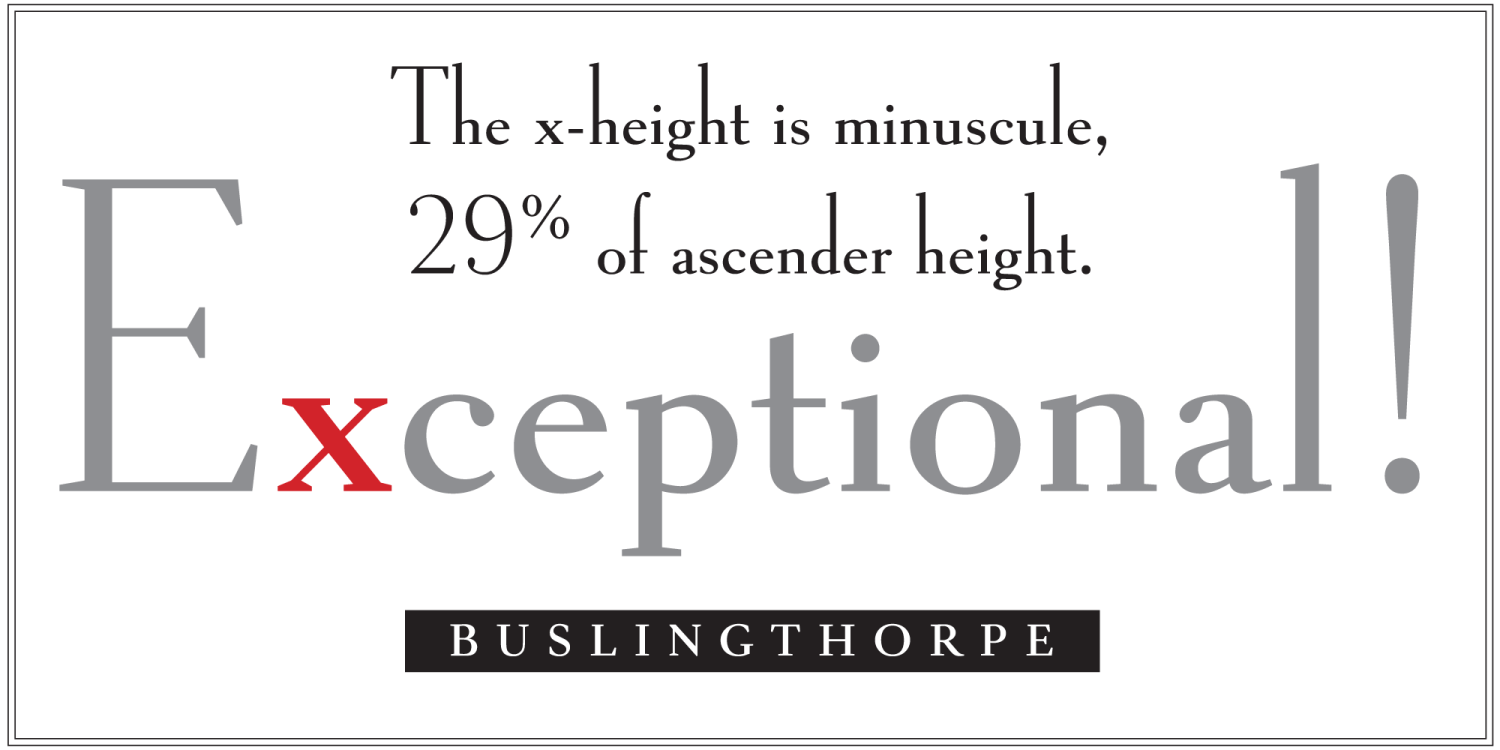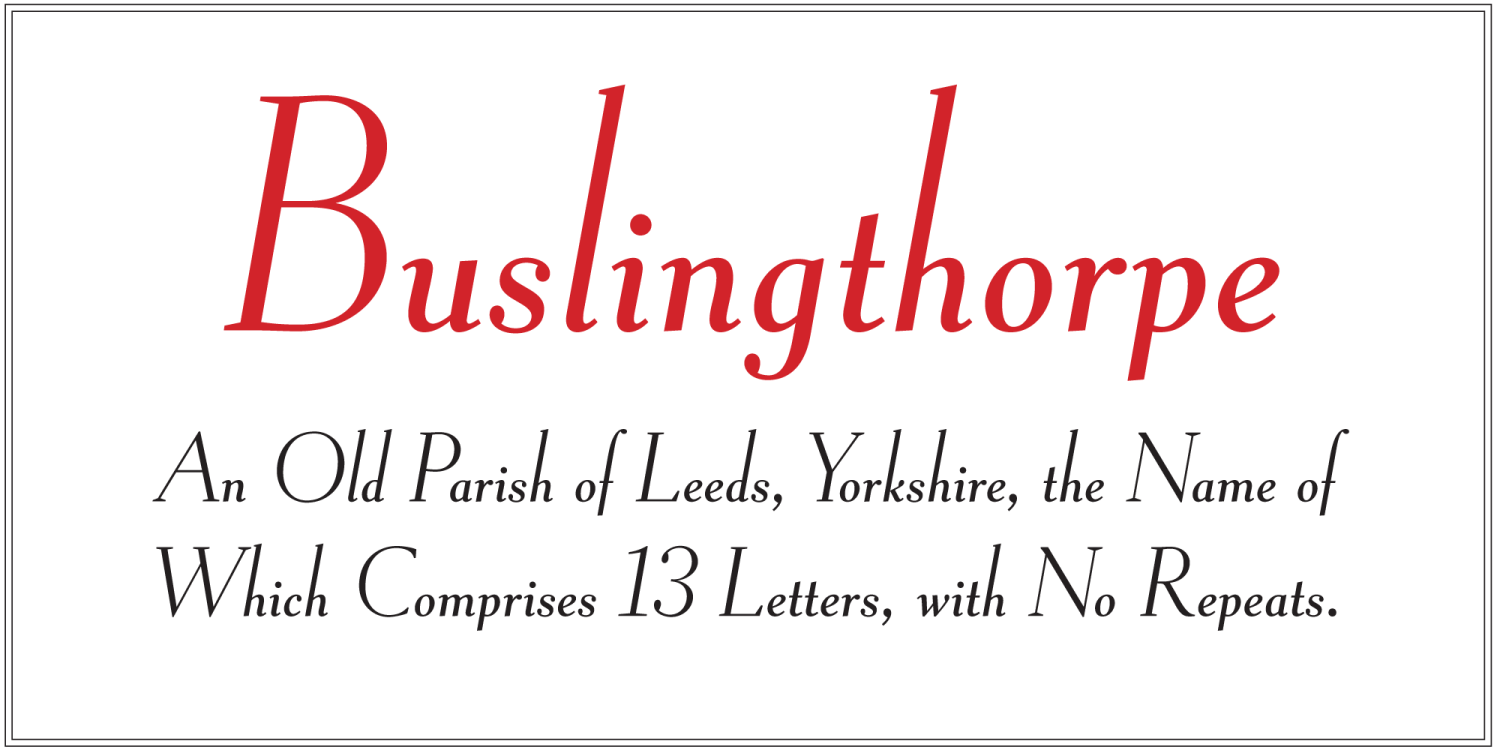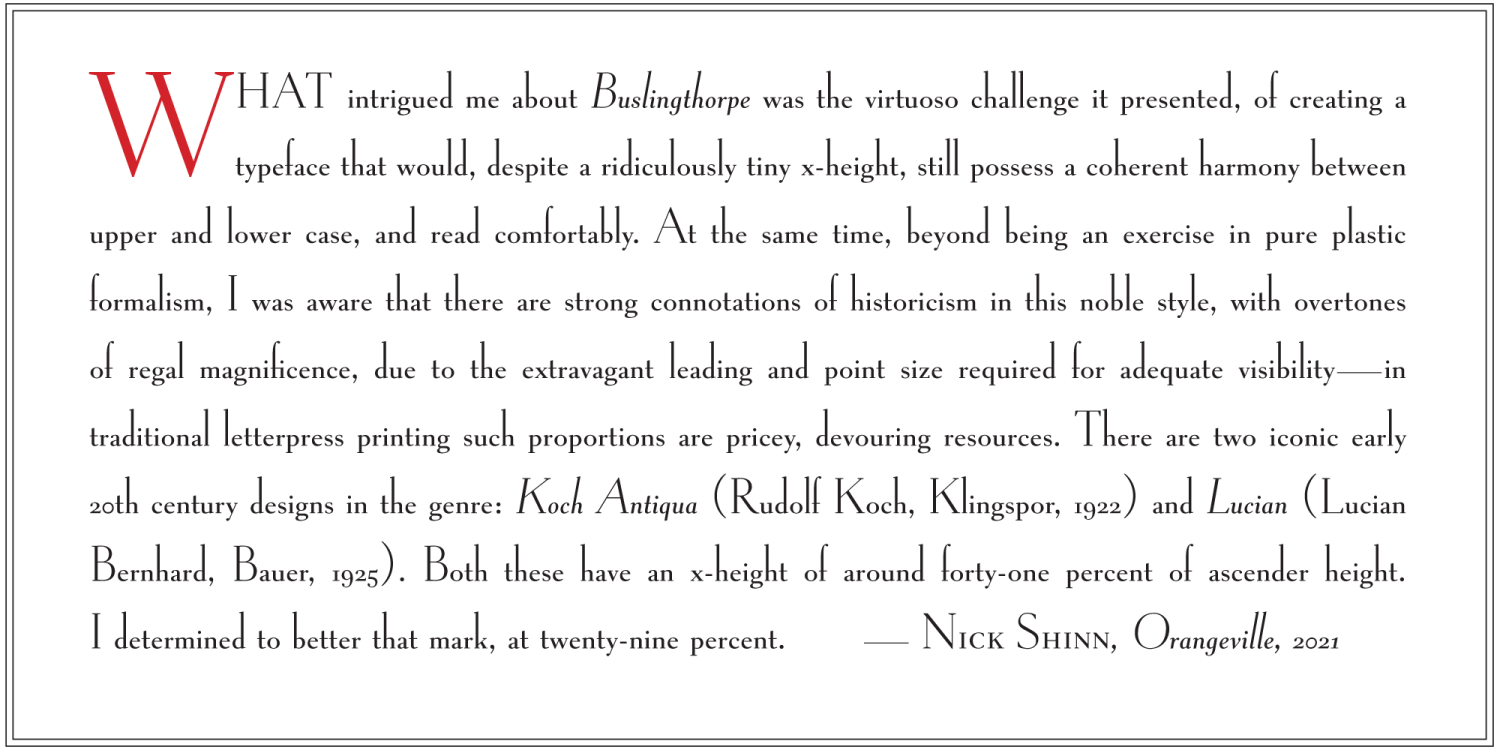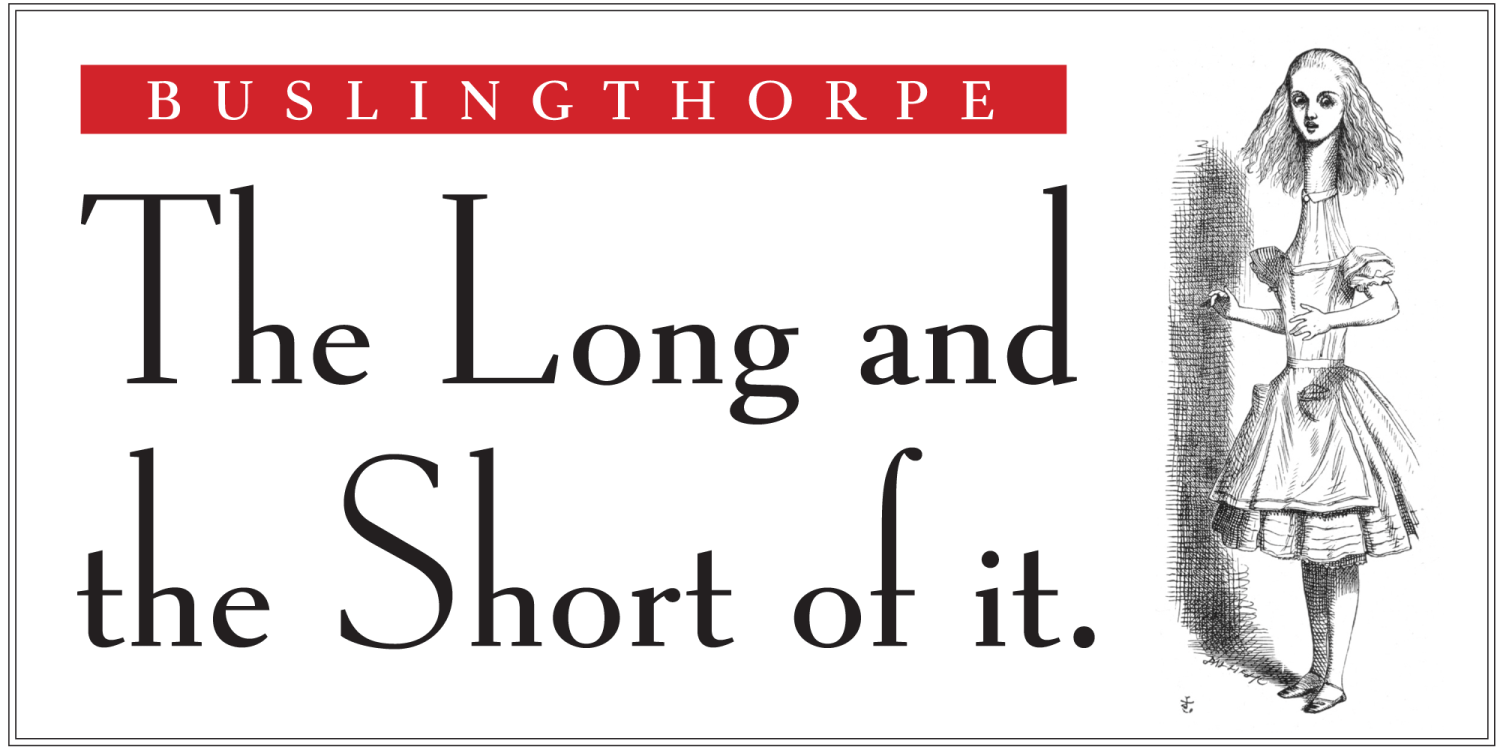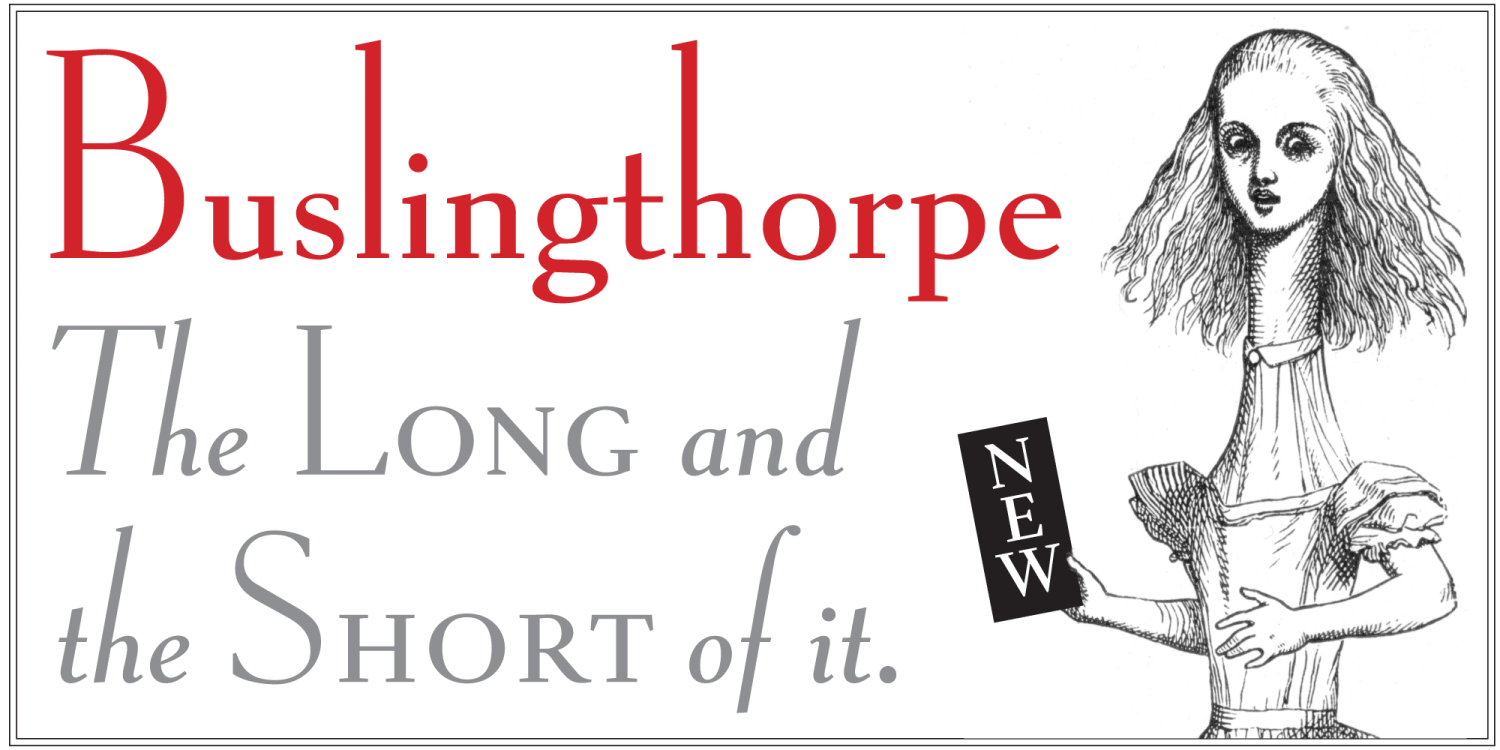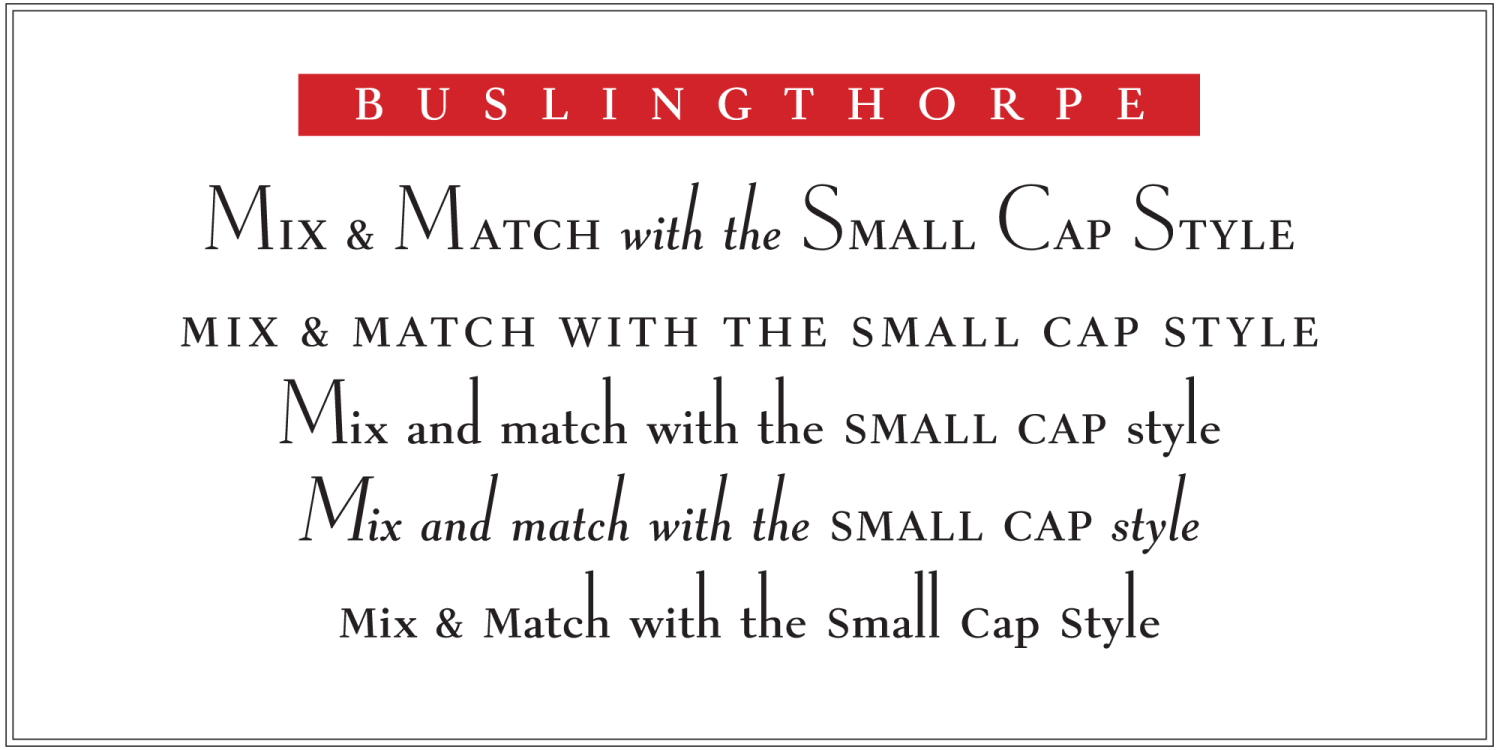
Buslingthorpe
About Buslingthorpe
Curiouser and curiouser! Both a foray into historicism and an exercise in the limits of functionality, Buslingthorpe blurs the boundaries between the connotative and the experimental, discovering an unexpected, humorous outcome that verges on the absurd,…